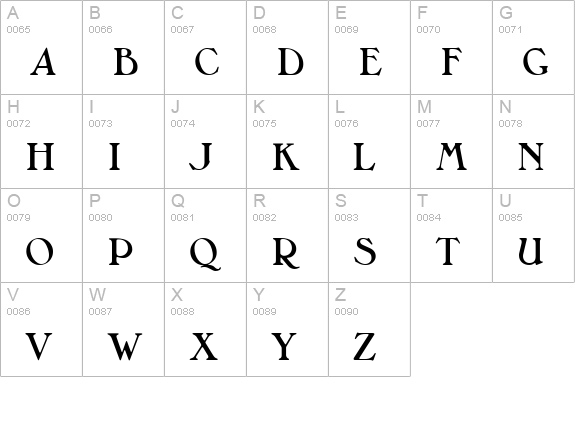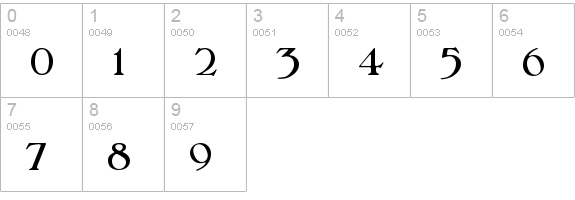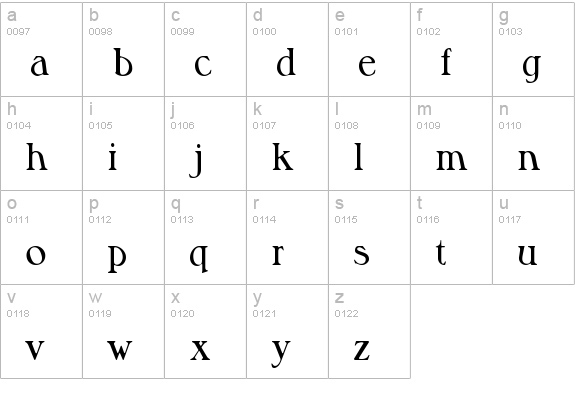
Milton MN Demibold Font Details
Milton MN Demibold is a sub-bold, structured variant in the Milton typeface family \xE2\x80\x94 well suited to sub-headlines and emphasised passages.
Introducing Milton MN Demibold font, a modern and versatile typeface that exudes sophistication and elegance. With its bold weight and clean lines, this font is perfect for making a strong statement in any design project. Whether you're creating a logo, poster, or website, Milton MN Demibold will add a touch of class and professionalism. What sets this font apart is not only its striking appearance but also its accessibility. You'll be delighted to know that Milton MN Demibold is available for free download at FontsMarket.com. This means you can easily incorporate this stylish font into your designs without breaking the bank. Don't miss out on the opportunity to elevate your projects with the timeless charm of Milton MN Demibold font. Download it today and let your creativity shine!